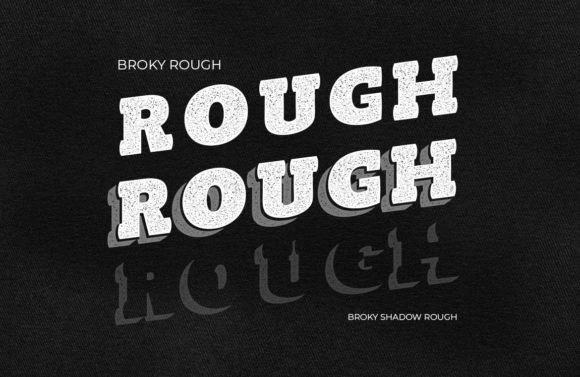
The Perfect Western-Chic Addition to Your Font Library
You know that feeling when you’re working on a project and you just can’t seem to find the right font to match your vision? You’ve scrolled through countless options, but nothing seems to quite fit the bill. That’s where the Broky Rough Font comes in – a cool, western-looking slab serif font that’s sure to elevate your creations.
This versatile font is perfect for designers looking to add a touch of rugged charm to their work. Whether you’re working on a branding project, a poster, or even a website, the Broky Rough Font has the potential to bring your designs to life in a way that’s both unique and memorable.
So why is the Broky Rough Font so valuable to designers? For starters, its western-chic aesthetic makes it perfect for projects that need a little bit of grit and edge. Plus, its versatility means it can be used across a wide range of mediums, making it a great addition to any font library.
Key Features of Broky Rough Font
- Rough Texture: Unique rough texture effect adds a tactile feel to your designs, perfect for creating eye-catching headlines and titles.
Review of Broky Rough Font
When I first laid eyes on the Broky Rough Font, I knew it was something special. The intricate texture and deliberate imperfections gave it a unique, hand-crafted feel that’s perfect for adding some visual interest to your designs. ✨
The font’s versatility is one of its strongest suits. It works well for a wide range of applications, from headlines to body text, and can even be used for titles and logos. The font’s bold, rough texture also lends itself well to creating a sense of depth and dimensionality, which can be especially effective in designs that require a lot of visual hierarchy.
Some of the limitations of the Broky Rough Font are worth noting, however. ⚠️ For one thing, the font’s texture can sometimes be overwhelming, making it difficult to read in smaller sizes. Additionally, the font’s imperfections can make it difficult to achieve precise control over the text’s alignment and spacing.
Overall, I think the Broky Rough Font is a great choice for designers looking to add some visual interest and personality to their work. Just be sure to use it judiciously, and to test it out in different sizes and contexts to ensure it’s working for you.
Key Strengths:
- Unique, hand-crafted texture
- Highly versatile, suitable for a wide range of applications
- Effective at creating a sense of depth and dimensionality
Key Limitations:
- Can be overwhelming in smaller sizes
- May require careful alignment and spacing
For the best results, use the Broky Rough Font for creative and artistic purposes, such as:
- Designing logos, icons, or graphics.
- Creating posters, flyers, or brochures.
- Adding a unique touch to digital and print materials.